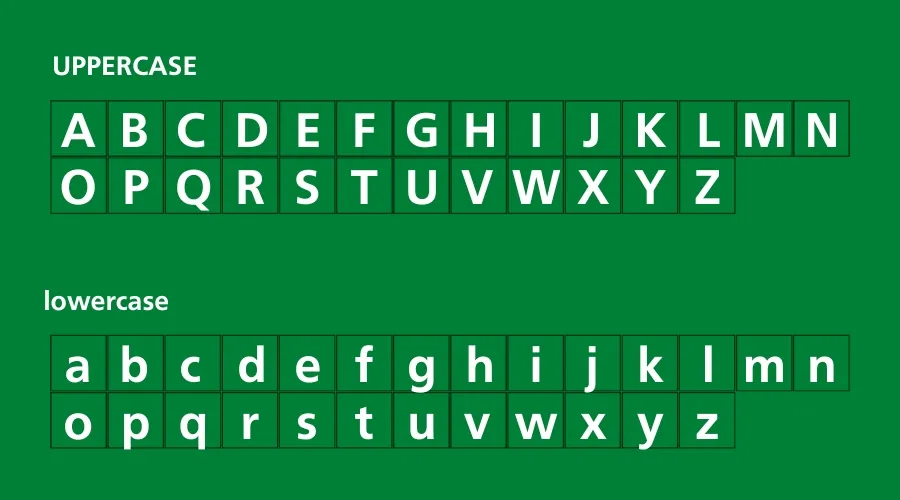
Frutiger Font
About Frutiger Font
Adrian Frutiger is the designer of Frutiger Font. In typographic history, this font is also recognized for its bold weight, which is normally used in online font generators. There is much speculation surrounding the name of this font.
There are many different design approaches that can be used with this great font family, and it can also be used on different types of devices because of its elegant letterforms and smooth texture.
In addition to being used inside the fabric industry and for wedding or invitation card designs. This text style has unique characteristics with the fashion of monoline.
The textual style is so excellent and classy, Also, the textual style is unbelievable for branding ventures, it is awesome for wedding cards, logotypes, business cards, advertisements, item bundling, and so on.
It is a fun and joyful font that is sure to add some excitement to your next design project. So, you should have tried it and had fun.
This typeface is normally used for making captions, brief idioms, and labels. The typeface has come to be an iconic font it has a beautiful design.